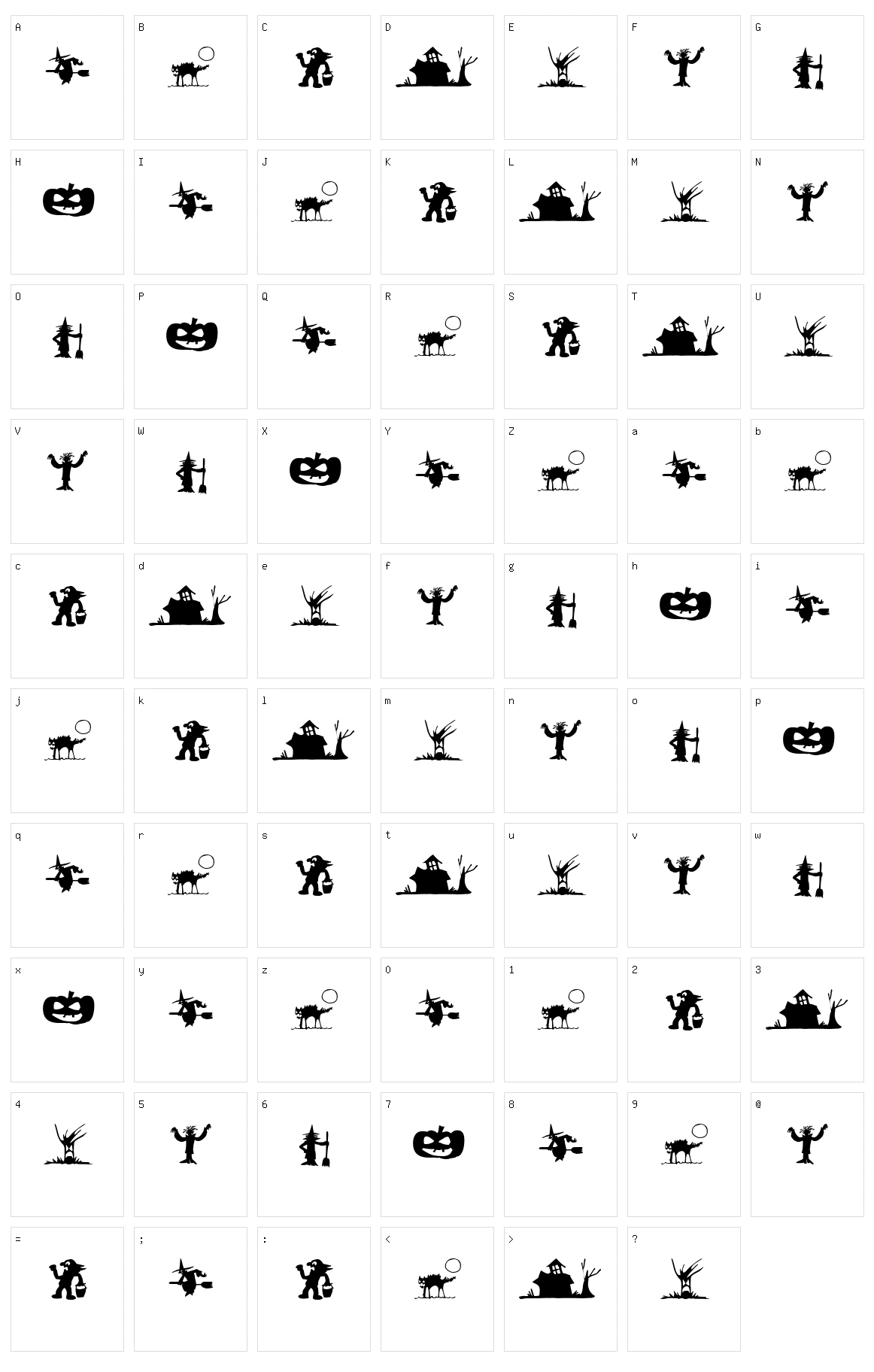
The free font Silbooettes is carefully designed by Michel Bujardet, showcasing a thoughtful balance of creativity and usability and falls under the Halloween font style. When you download the ZIP file, it contains only 50.57 KB of font files, making it lightweight and quick to download. Please review the license details below to understand permitted usage and distribution rights. If license information is not available, we recommend using this font for personal projects only or contacting the author directly for commercial usage permissions.